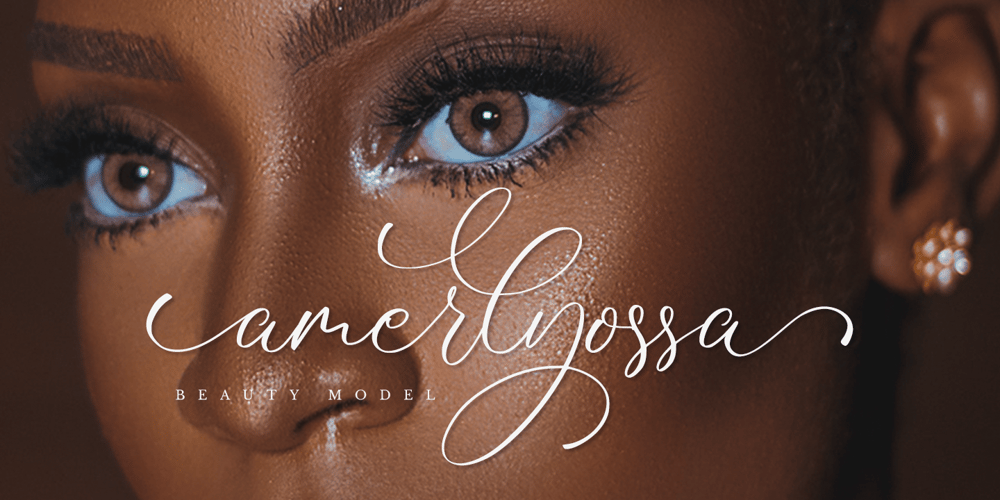
Movelyone Font Family was designed by Novia Himatunnisa and published by Nissa Nana. Movelyone contains 1 styles and family package options. Movelyone is a handwritten font that feels equally charming and elegant. It looks stunning on wedding invitations, thank you cards, quotes, greeting cards, logos, business cards, and every other design which needs a handwritten touch.